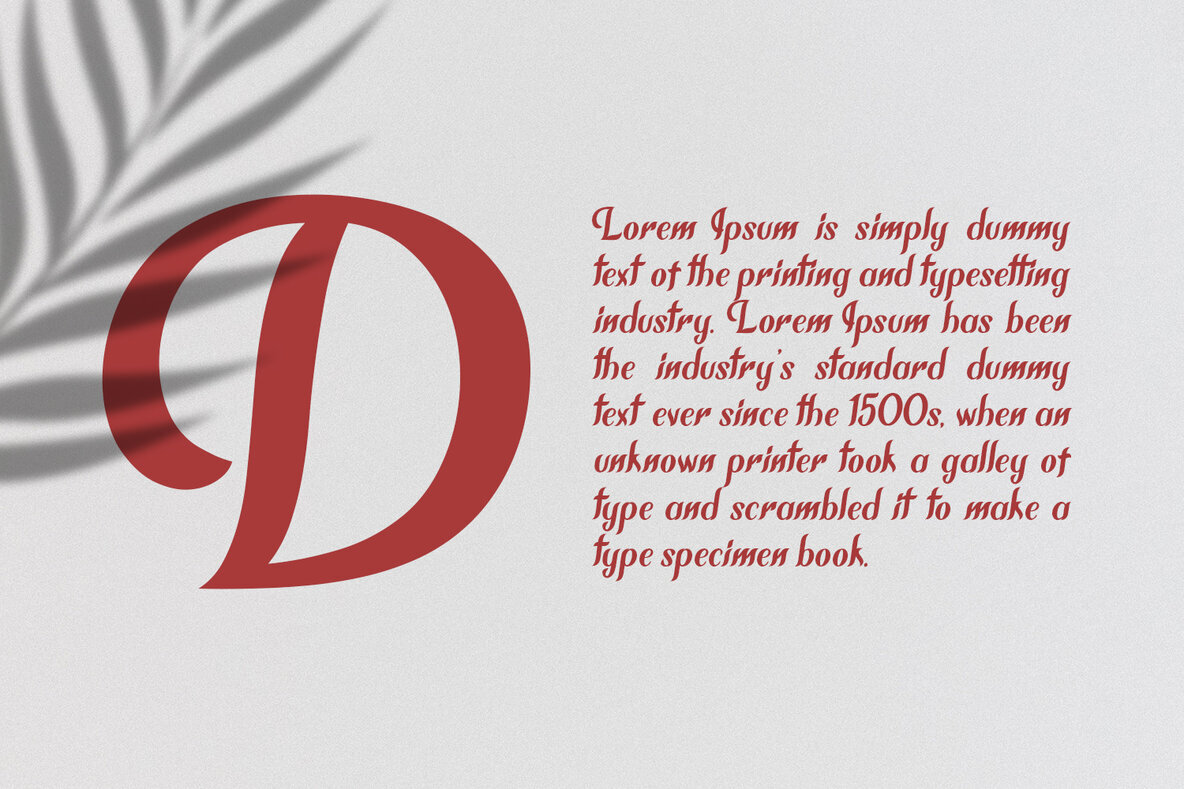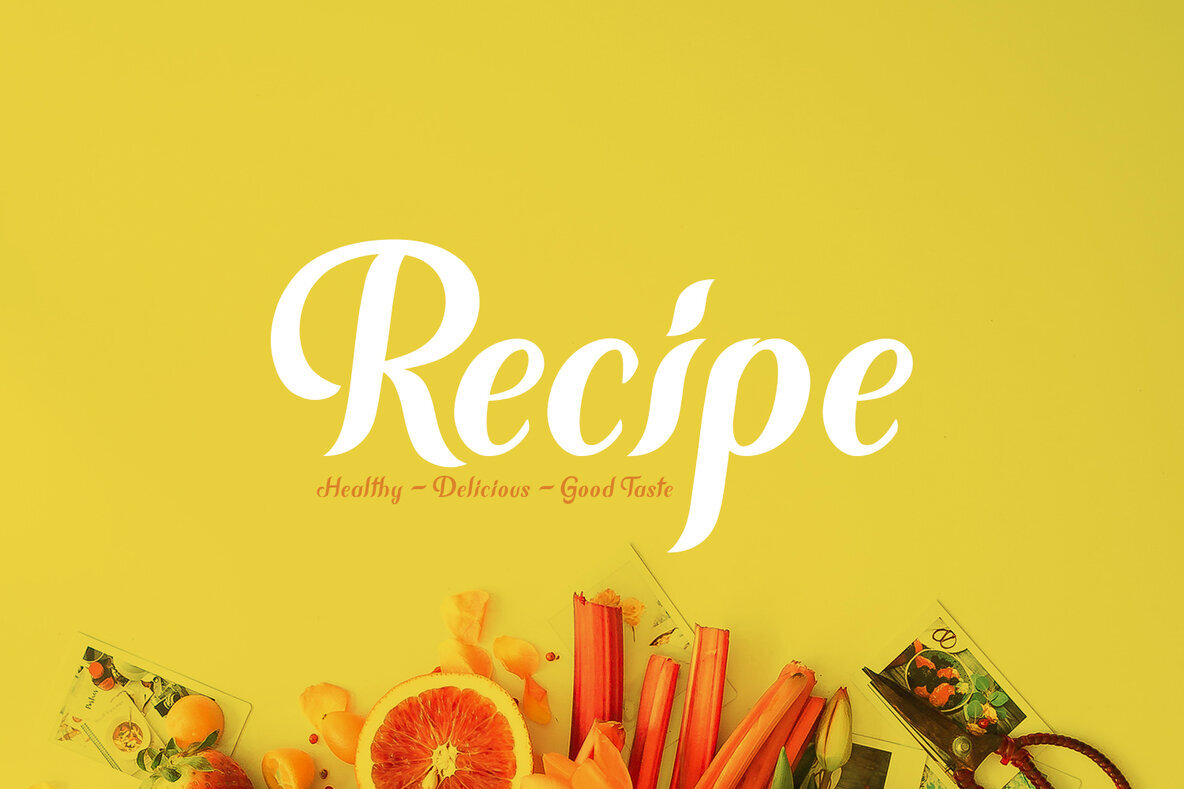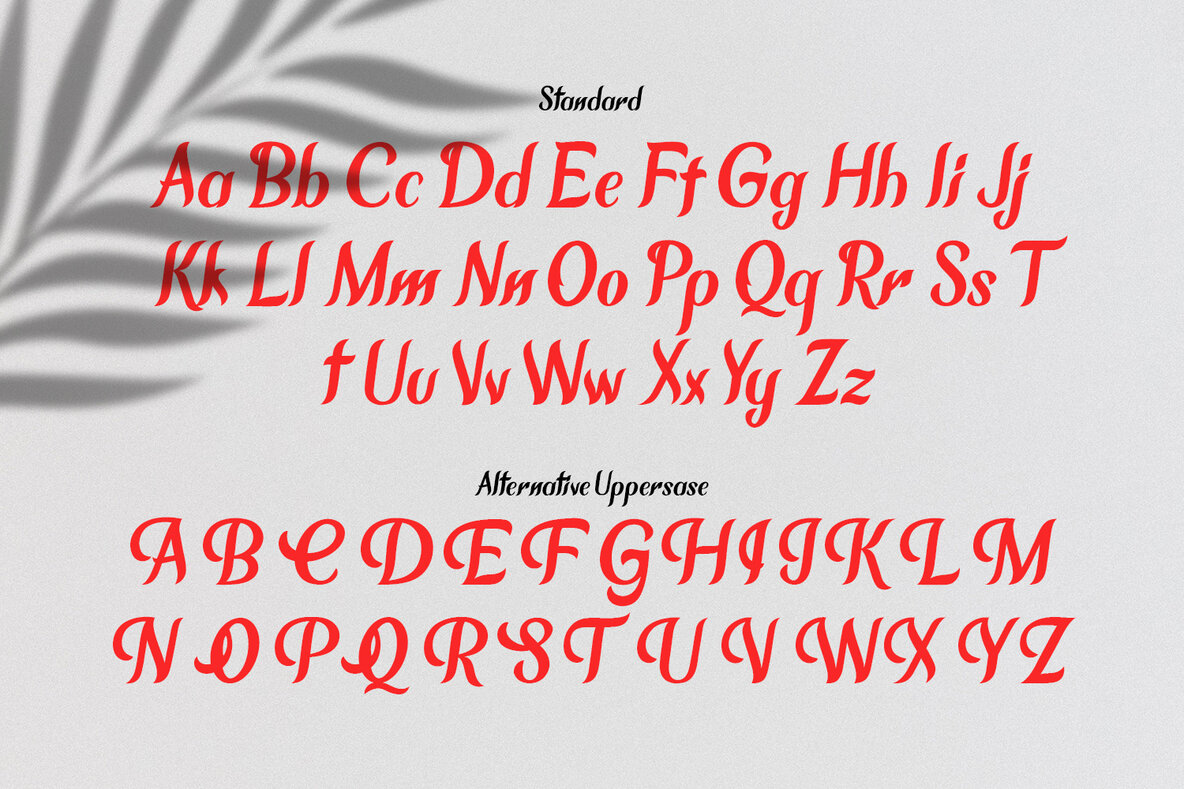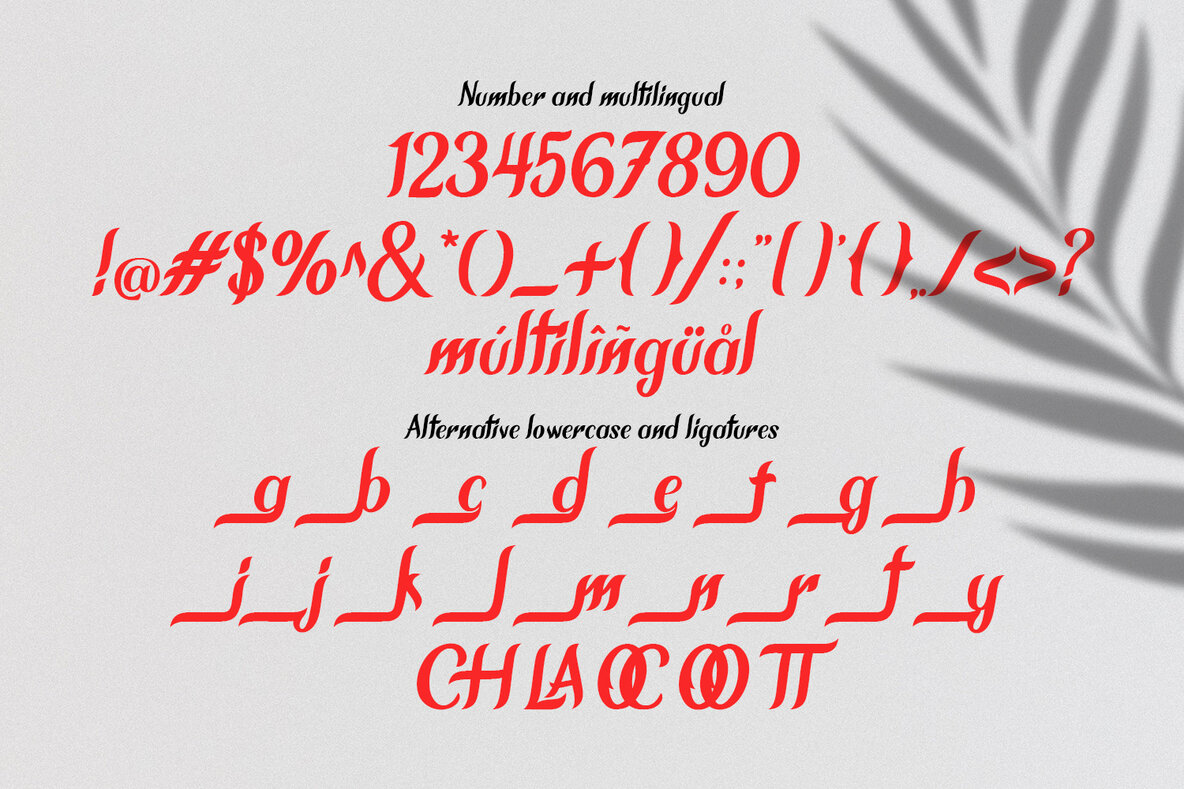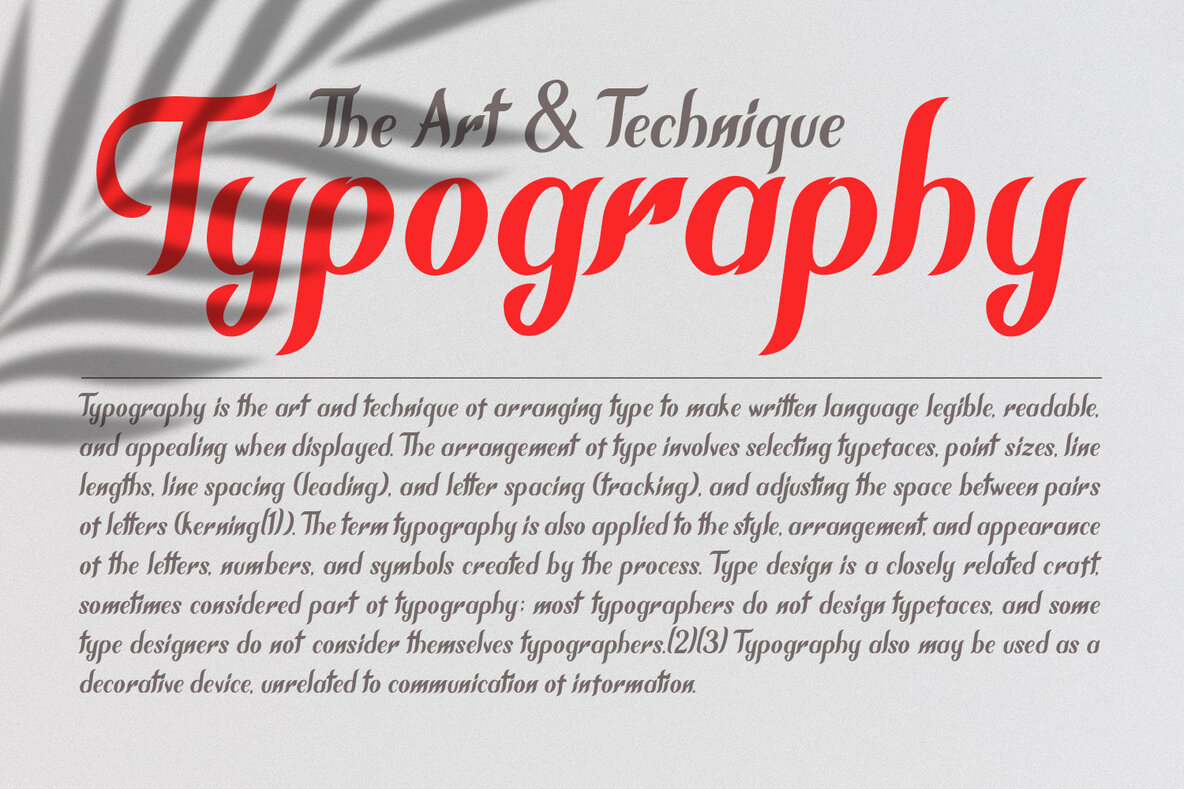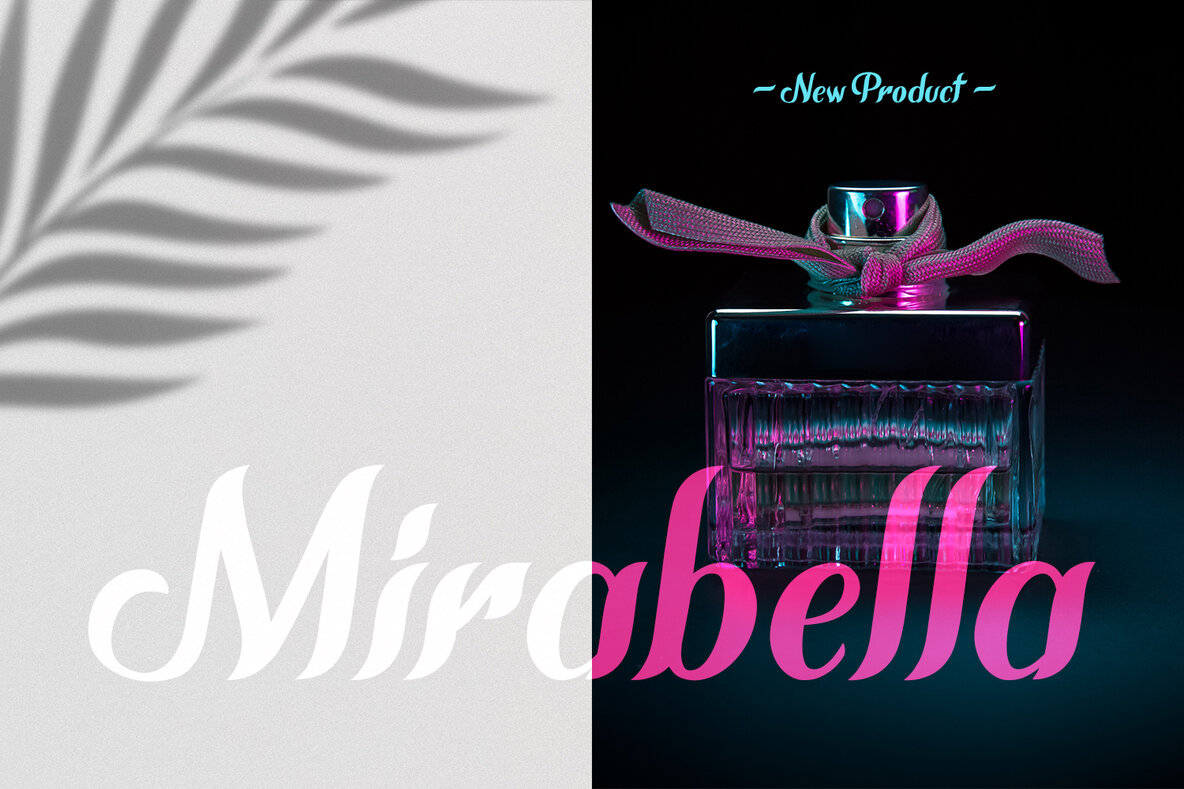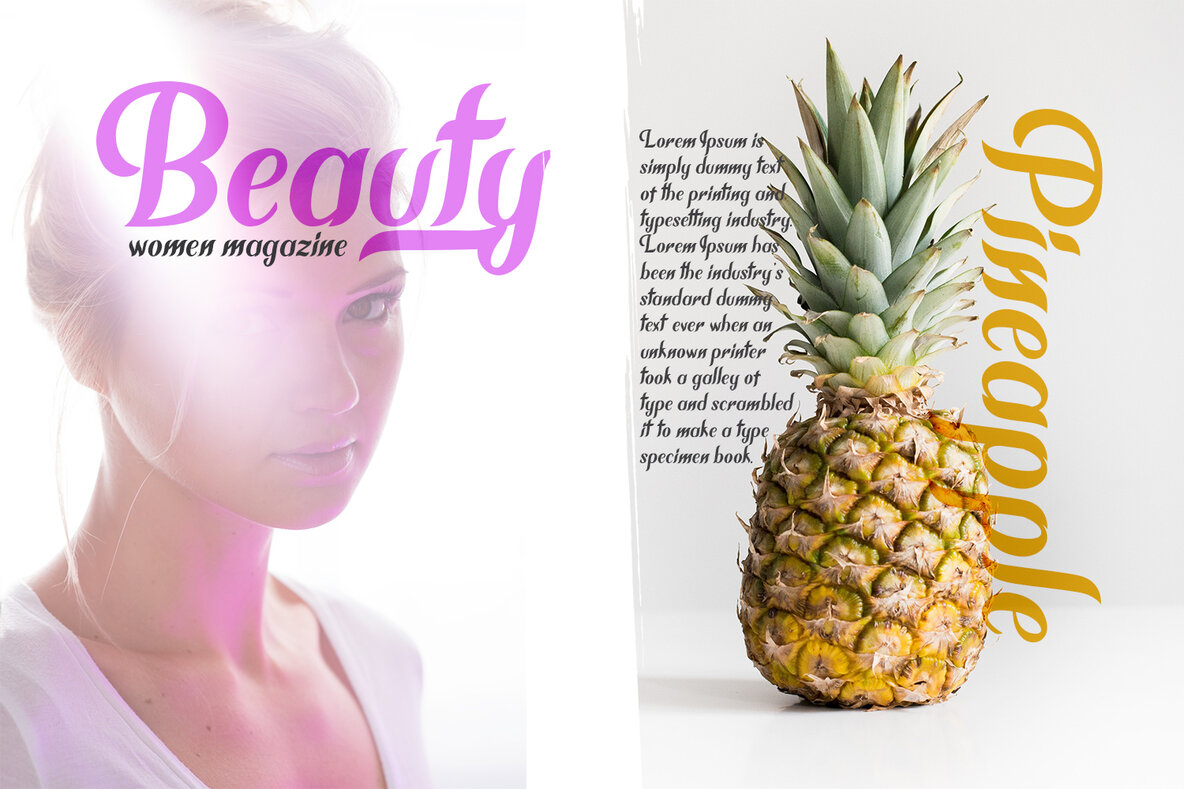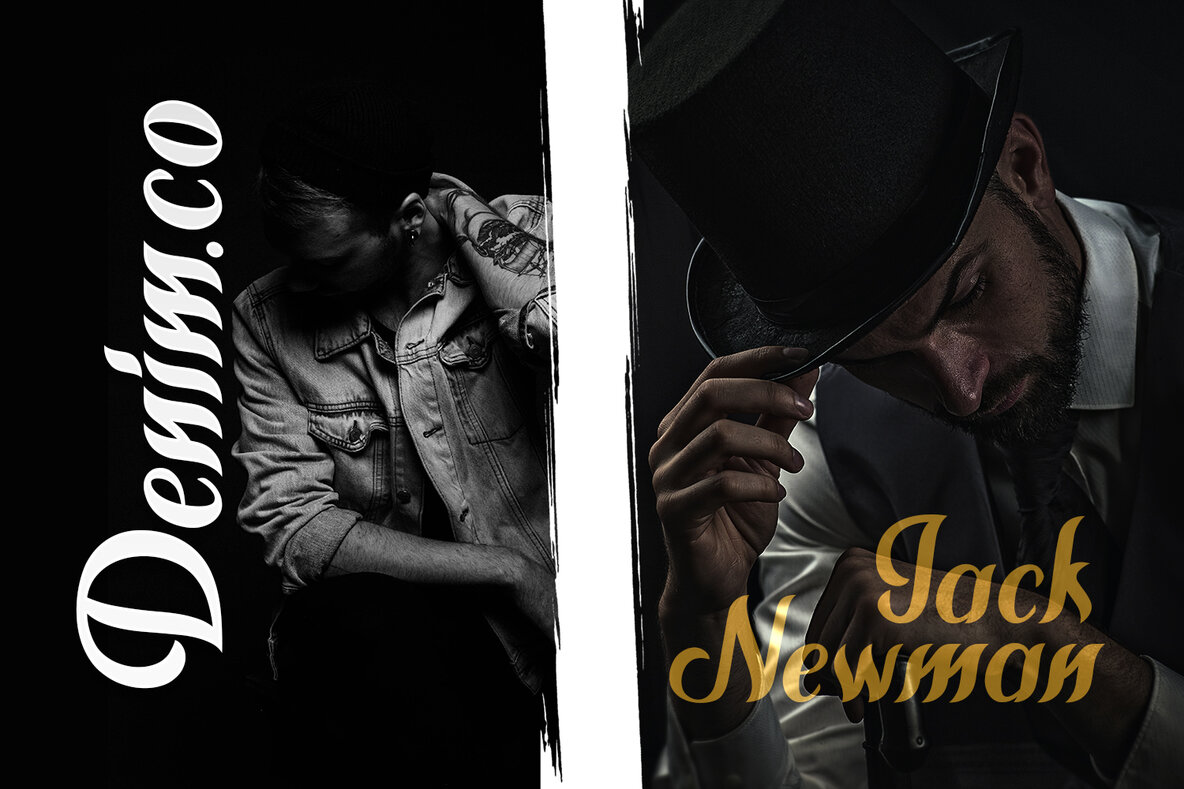
Chameron Font
Chameron Regular
Chameron Stamp
Chameron offers a contemporary style that fits seamlessly into modern branding strategies. Ideal for a range of applications, from product packaging and invitations to quotes and t-shirts, Chameron delivers a unique look that stands out.Chameron: A Modern Typeface for Versatile Branding